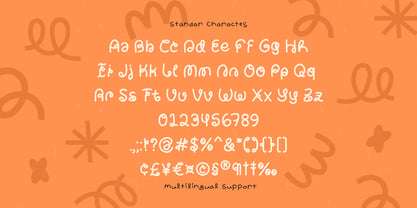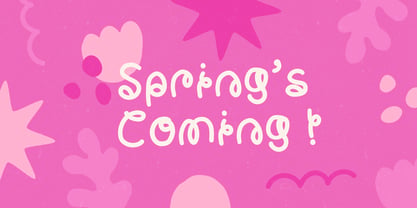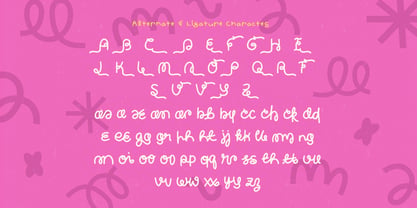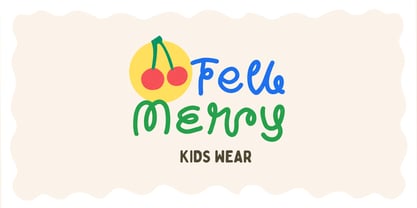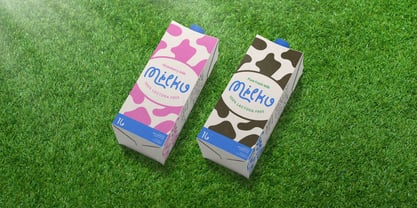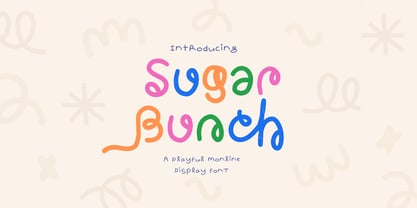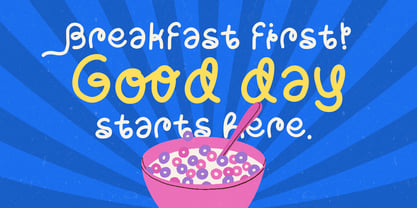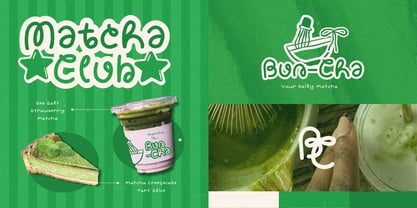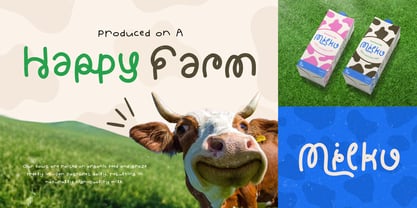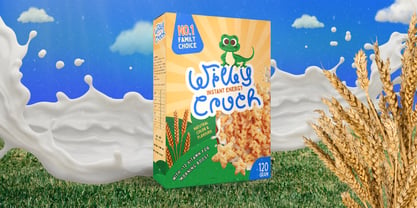
Sugar Bunch
Die Schriftfamilie Sugar Bunch wurde von Amelia Dian Isnaini entworfen und von Sloulyfe Studio veröffentlicht. Sugar Bunch enthält 1 Stile. Mehr über diese Familie
Sugar Bunch is pure happy energy in letterform. With its smooth monoline strokes, bouncy curves, and cheerful rhythm, every character feels like it’s dancing on the baseline. The shapes are rounded, friendly, and slightly quirky, giving it that bright and true Saturday morning spirit.  It’s bold enough to stand out, yet soft enough to stay sweet—perfect for snack packaging, kids branding, playful logos, vibrant posters, joyful quotes, and fun social content that needs a pop-pop-pop of sunshine. Sugar Bunch doesn’t just spell words—it makes them smile. Features :Uppercase & lowercase, Numbers and punctuation, Alternates or Ligatures, Multilingual support & PUA encoded